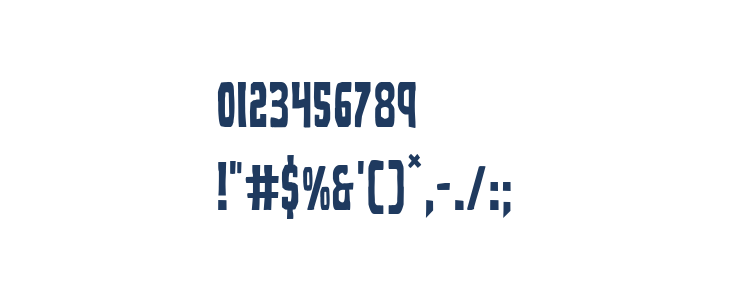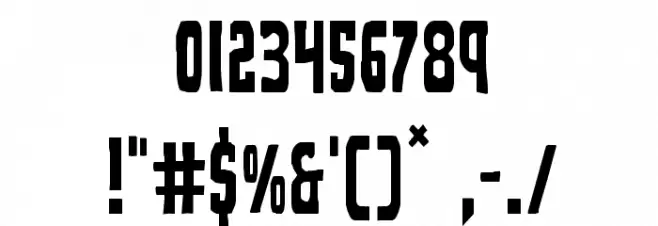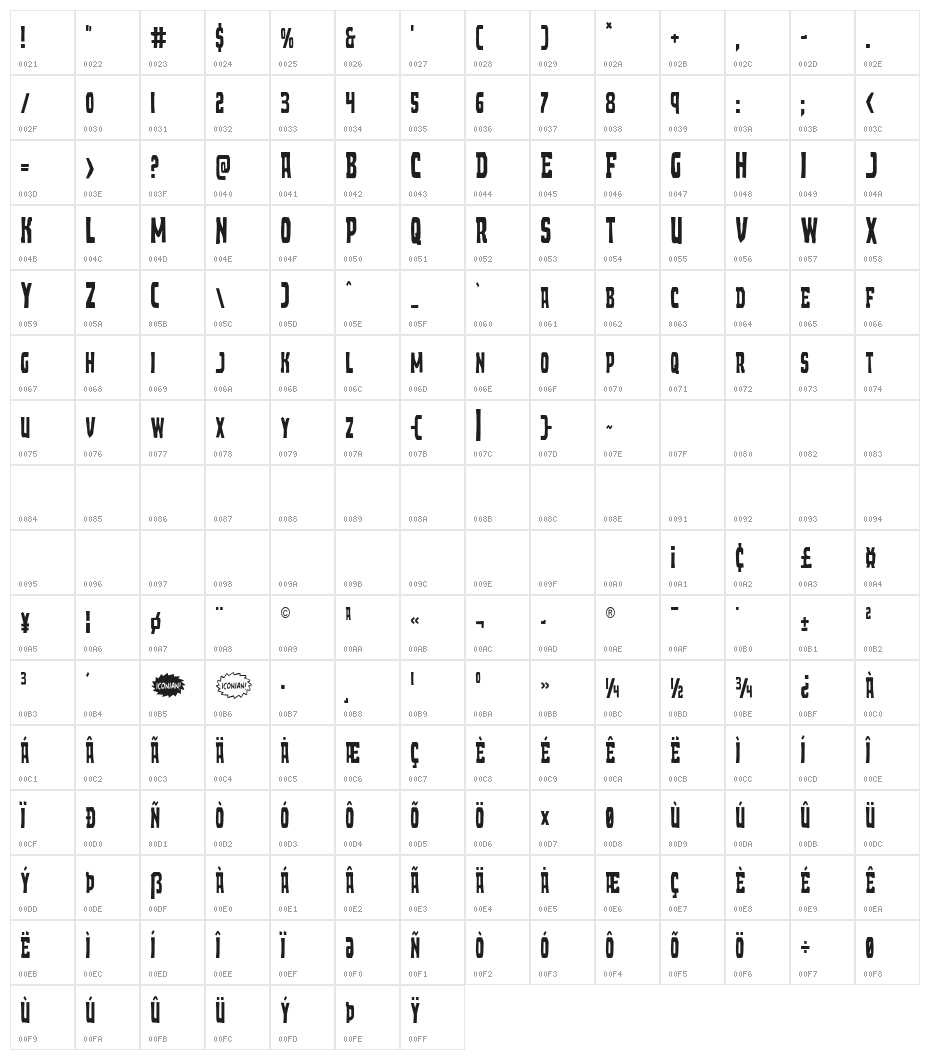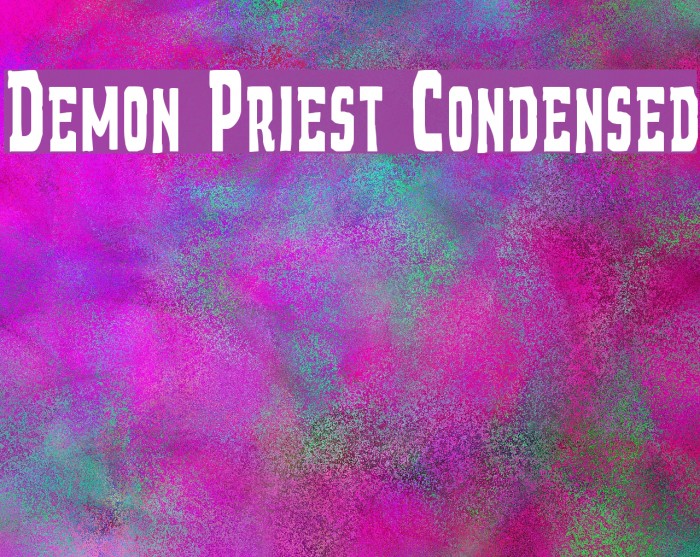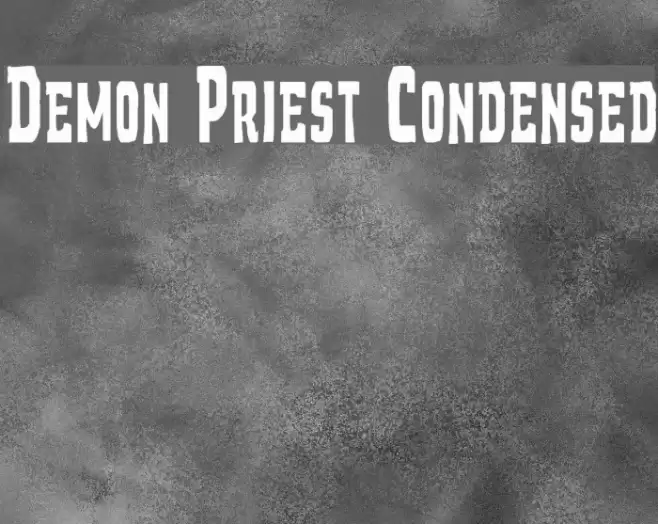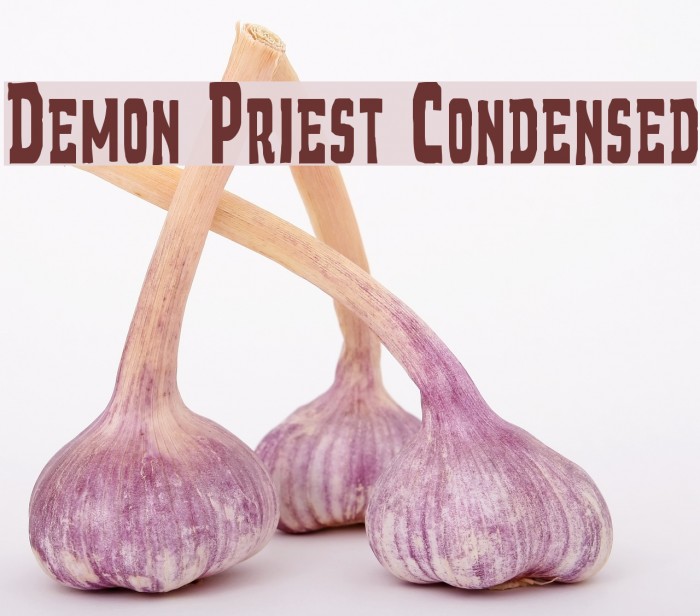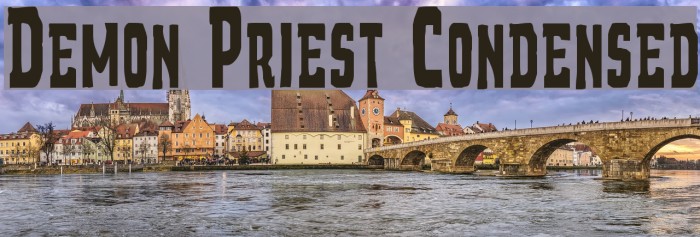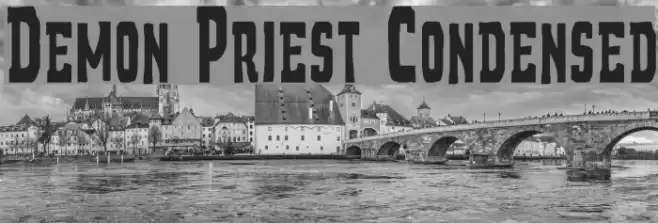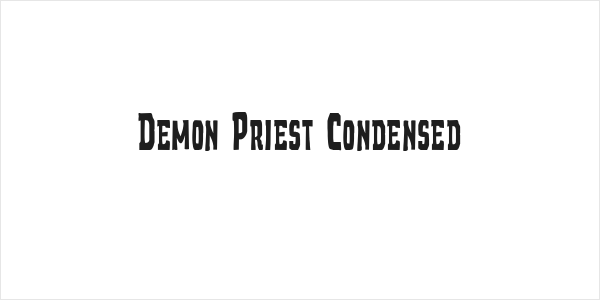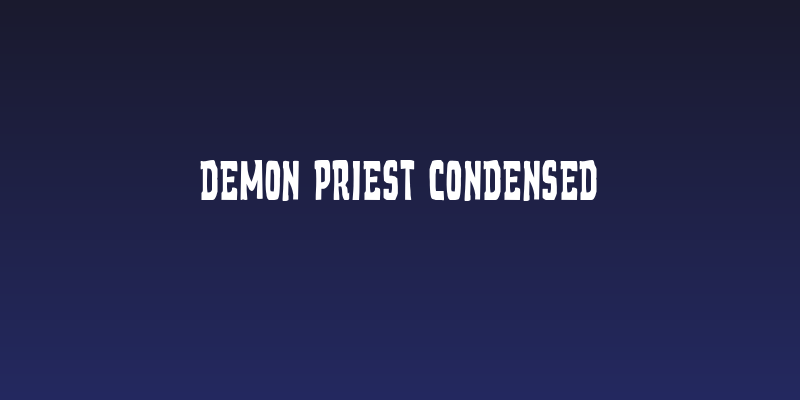
Demon Priest Condensed Font
Demon Priest Condensed Description
This font features a bold and condensed style with a strong, impactful presence. The characters have a slightly distressed appearance, giving them a rugged and edgy look. The uppercase letters are tall and narrow, while the lowercase letters maintain a consistent height, enhancing readability. The numbers and special characters follow the same condensed and bold design, ensuring uniformity across all elements. This font's unique style makes it suitable for projects that require a dramatic and attention-grabbing typeface.
| Overall Style | Edgy, Dramatic |
| Proposed Projects | Ideal for posters, album covers, video game titles, and branding that requires a bold statement. |